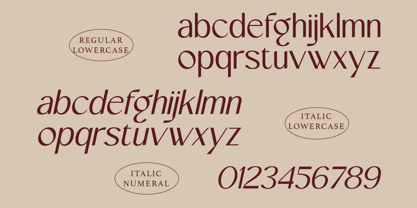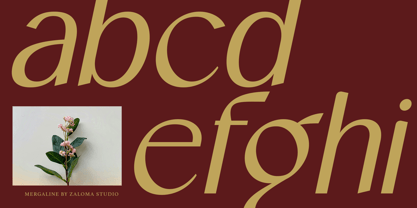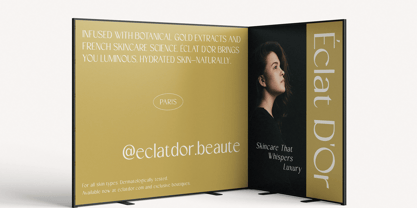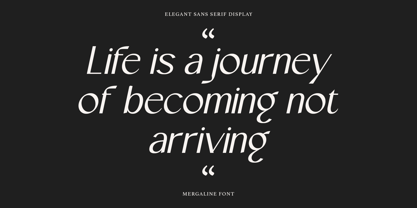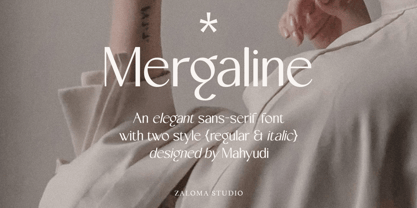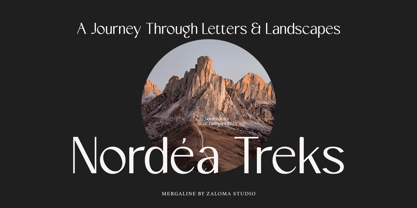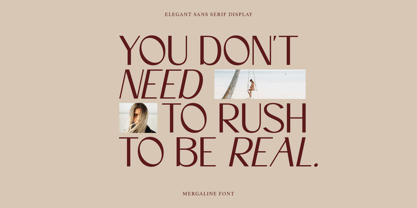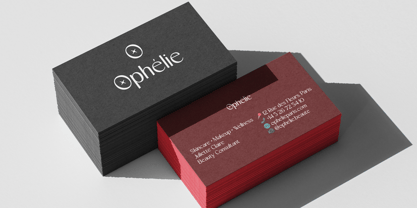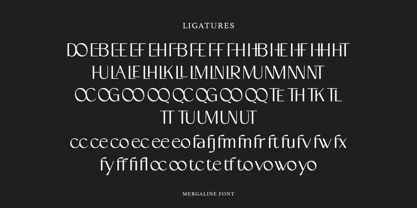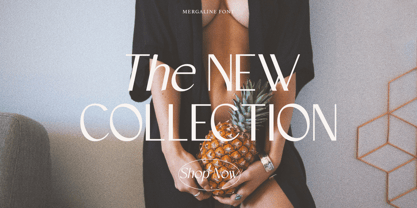
Mergaline
by Zaloma Studio
The Mergaline Font Family was designed by Mahyudi and published by Zaloma Studio. Mergaline contains 2 styles and family package options. More about this family
Mergaline — Elegant Sans Serif Display Font
Mergaline is an elegant sans serif display font that blends modern minimalism with a touch of classic refinement. Its sleek, geometric structure is paired with distinctive details—most notably the artistic form of the letter g—creating a unique visual identity that stands out in sophisticated design contexts.
Features:
2 Styles: Regular & Italic
Uppercase & Lowercase Letters
Stylish, modern numerals
Gracefully slanted Italic style
Perfect for logos, fashion branding, editorial design, packaging, posters, and more
Concept:
Mergaline is inspired by a mix of classical European sans serif elegance and contemporary typographic trends. Designed to radiate sophistication and charm, it delivers a high-end aesthetic while maintaining warmth and personality.
Designers: Mahyudi Mahyudi
Foundry: Zaloma Studio